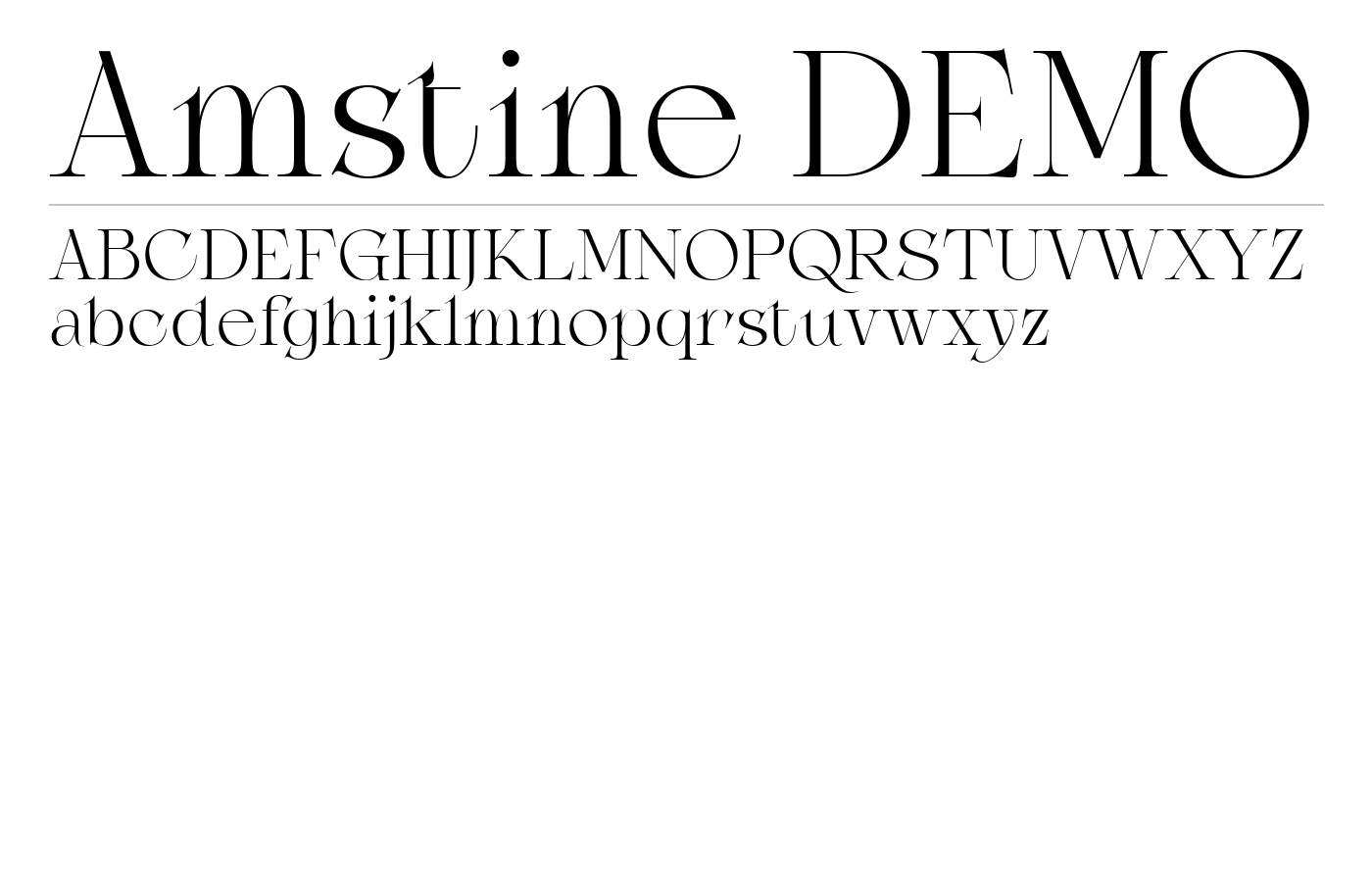
Amstine DEMO is a refined serif font that embodies elegance with its high contrast between thick and thin strokes and delicate, bracketed serifs. Its tall, narrow letterforms and sophisticated details lend a timeless, luxurious feel, making it ideal for upscale branding, editorial headlines, and fashion-oriented design. This font’s classic yet stylish personality brings a sense of grace and exclusivity to any project.
Amstine DEMO Font